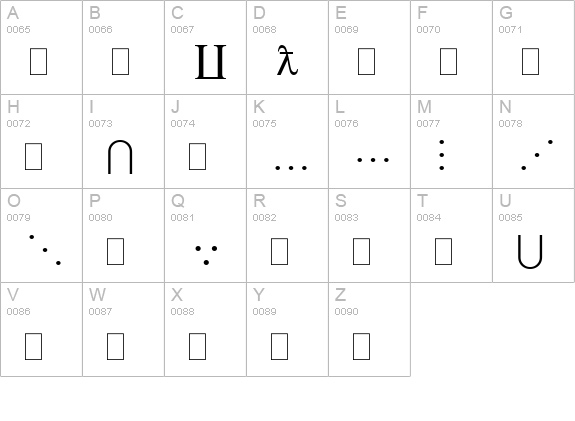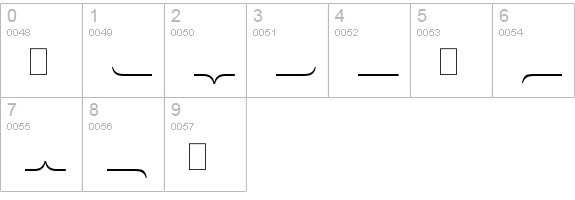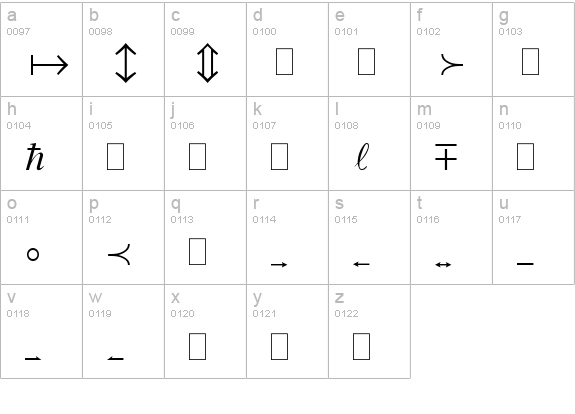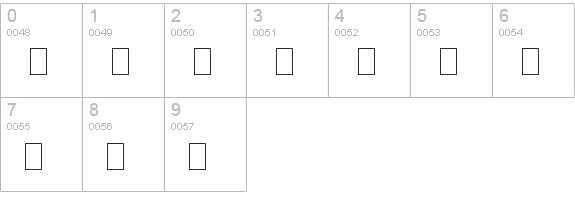
MT Extra Font Details
MT Extra is a distinctive and versatile font that is sure to make a statement in any design project. With its bold and sleek appearance, this font exudes a sense of strength and modernity. Its unique character shapes and clean lines make it perfect for a wide range of applications, from headlines to logos to branding materials. The best part? MT Extra is available for free download at FontsMarket.com. This means that you can easily access this high-quality font without any cost, making it a valuable addition to your font library. Whether you're a professional designer or a casual enthusiast, MT Extra is a must-have font that will elevate your designs to the next level. Download it today and start creating stunning visuals with ease.